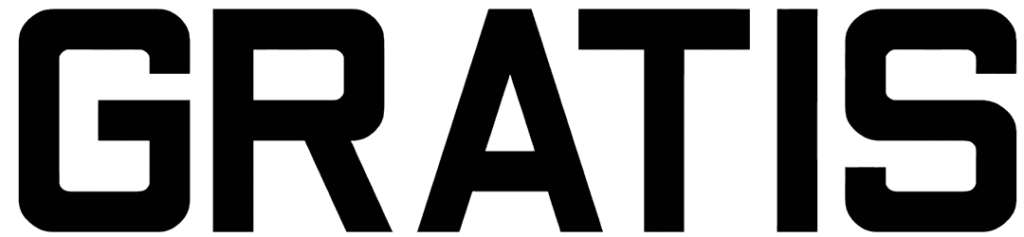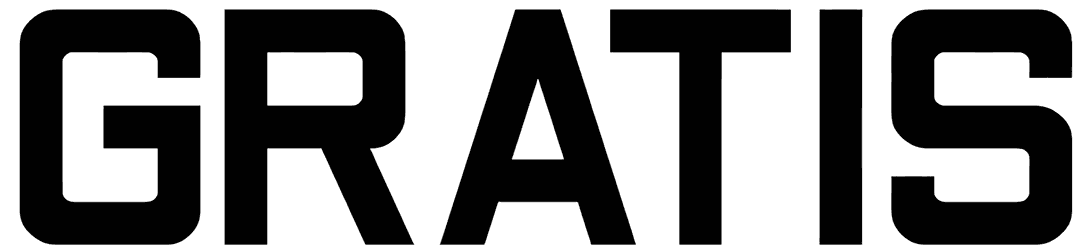
Gratis Font
If you are searching for a bold font with a modern futuristic mood, Gratis is able to gratify you. This techno font with its salient face has two sets of uppercase, and one of them is decorated with details similar to co…
If you are searching for a bold font with a modern futuristic mood, Gratis is able to gratify you. This techno font with its salient face has two sets of uppercase, and one of them is decorated with details similar to computer codes, but there is no lowercase. Put Gratis on your subsequent projects like digital designs, posters, foregrounds, or similar things.